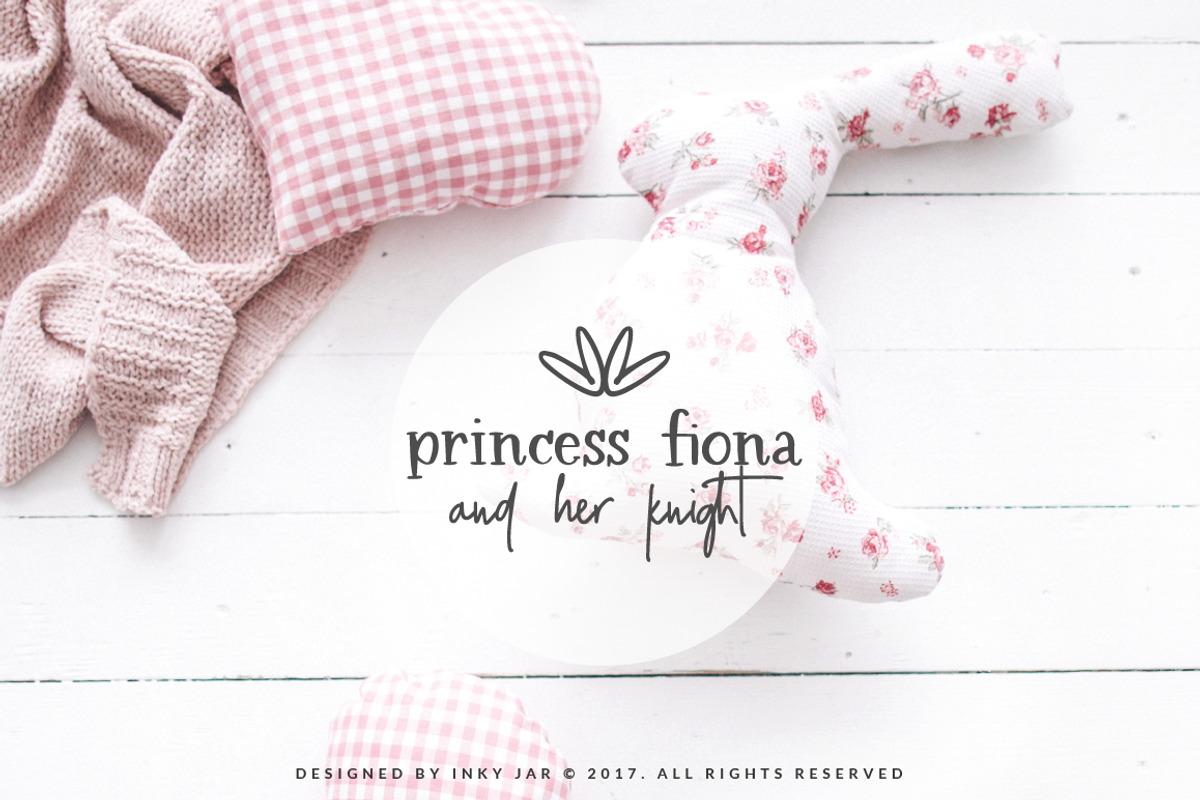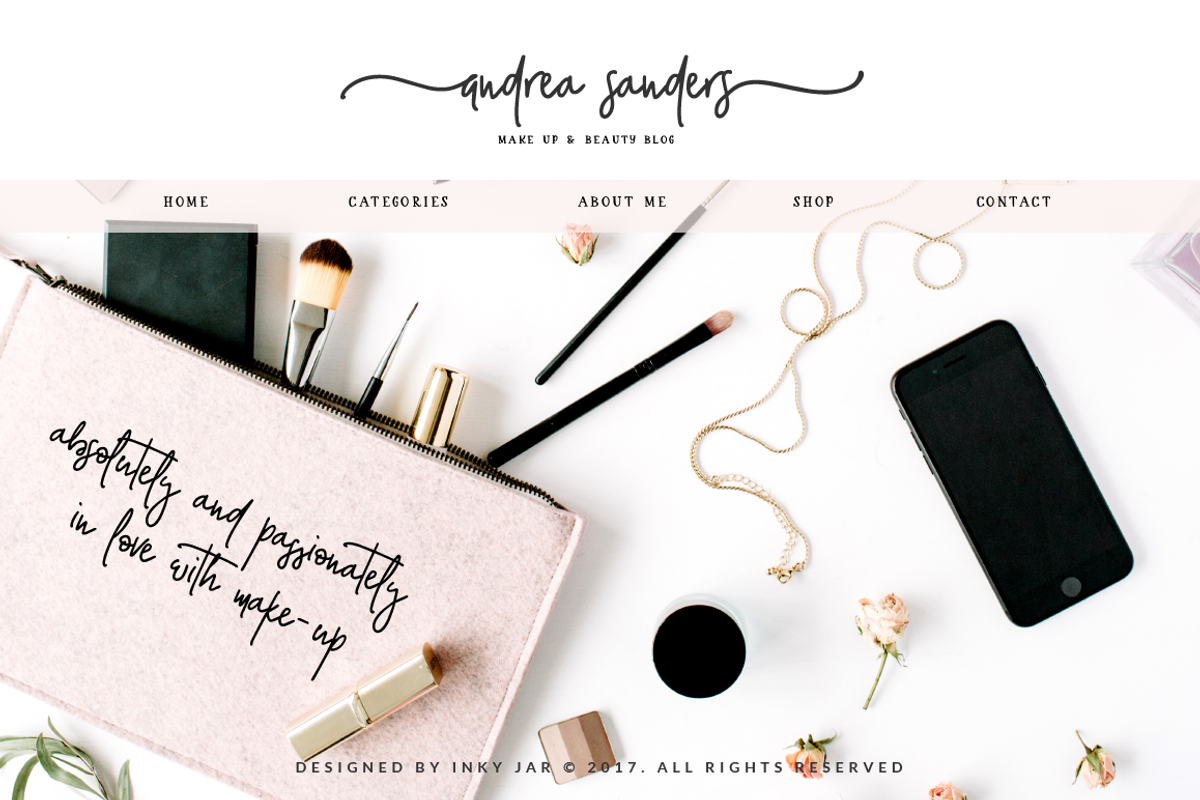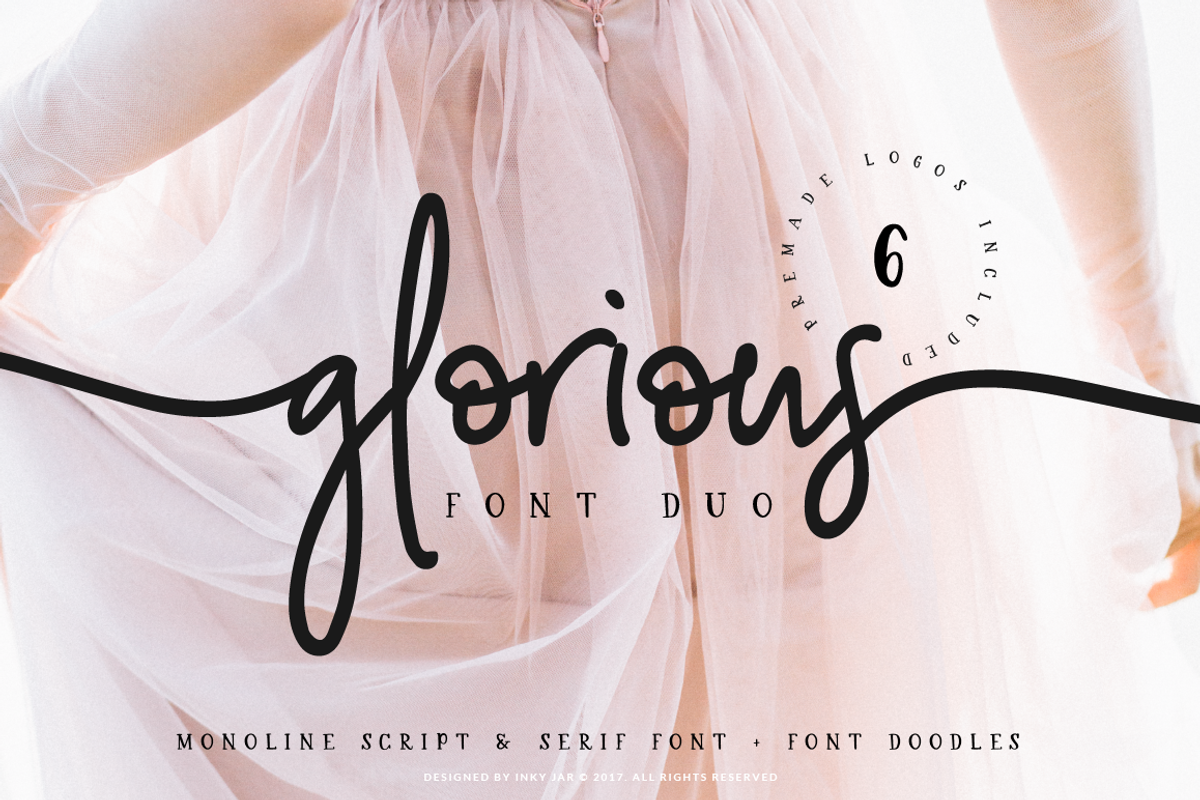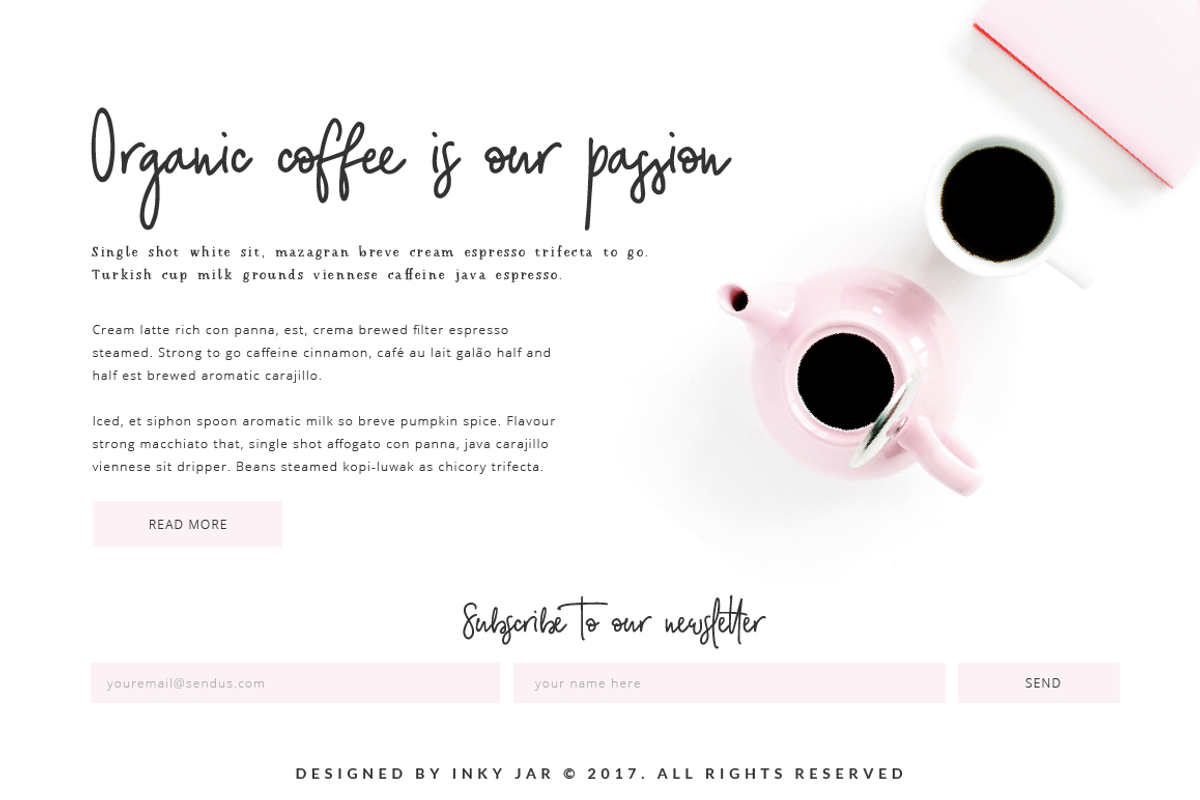
Glorious Font Duo + Extras - UPDATE!
UPDATE! 11.06.2019. - Glorious Light Script version is added so you can make more elegant logos and stationery!
Glorious Font Duo + Extrasis a perfect branding combo which includes signature style monoline script font and handwritten serif font. But, that's not all - it also contains doodle font which has a lot of hand drawn shapes perfect for any branding or project. It is PUA encoded.
As this font is perfect for feminine brands, I provided a set of 6 premade logo templates in both Illustrator and Photoshop formats.